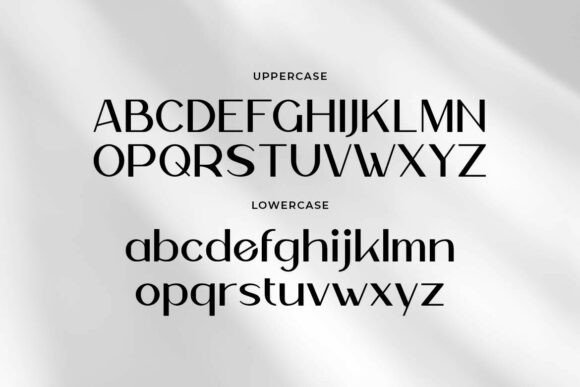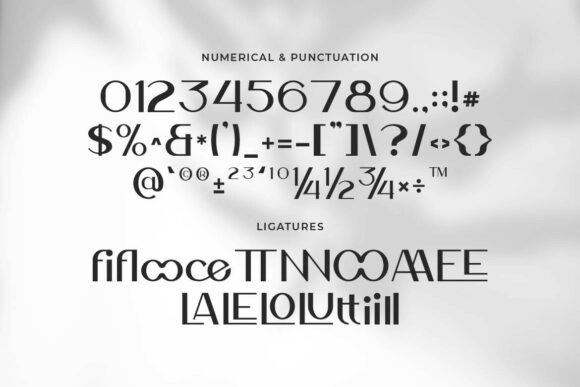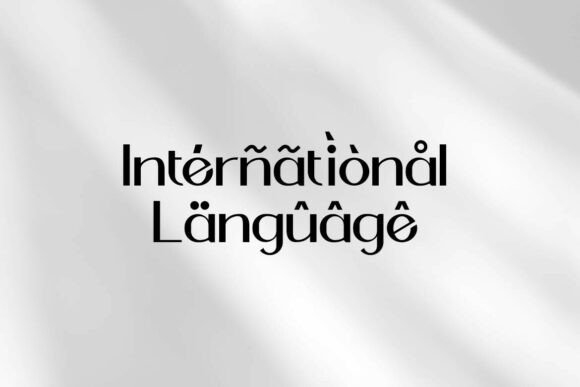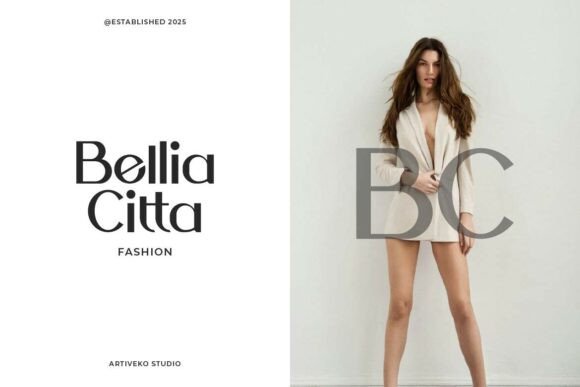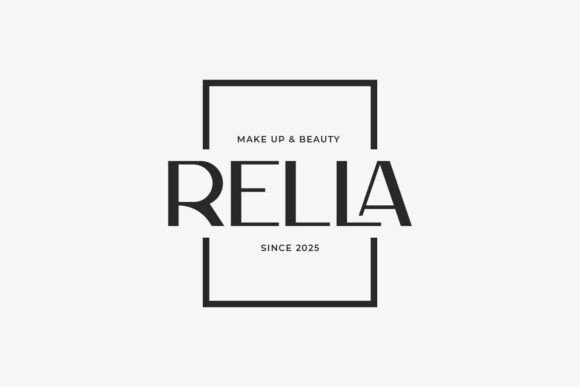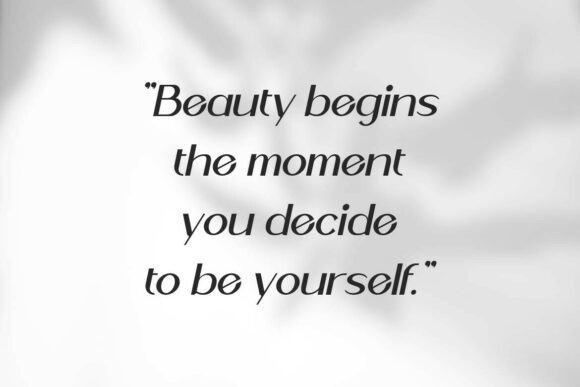
Introduction to Jitten Font Font
Fonts play a crucial role in design, and the Jitten Font font is a typeface that brings both character and versatility to any project. Whether you’re working on a branding project, a website, or a print design, the Jitten Font font offers a unique style that can elevate your work.
Jitten is a clean and modern sans serif font designed with a gentle, feminine touch.
Its smooth curves, airy spacing, and subtle elegance make it the perfect choice for lifestyle branding, fashion lookbooks, beauty packaging, social media templates, and wedding-related designs .
Key Features of Jitten Font Font
Why Choose Jitten Font Font?
The Jitten Font font is more than just a typeface – it’s a design tool that helps you communicate your message with style and clarity. Its unique character set and versatile design make it suitable for a wide range of applications, from elegant invitations to bold headlines.
With its carefully crafted letterforms and balanced proportions, the Jitten Font font ensures readability and visual appeal across all mediums.
What makes Jitten Font font special?
The Jitten Font font stands out with its unique design, exceptional readability, and versatility across various design applications.